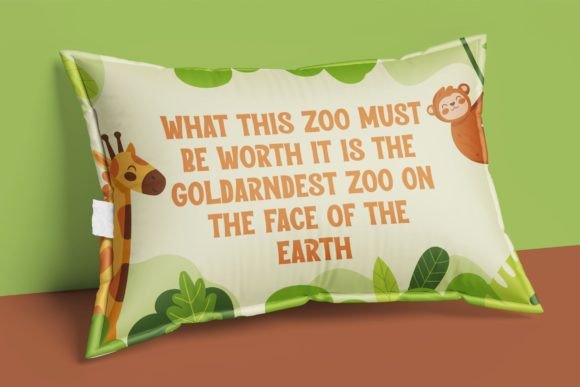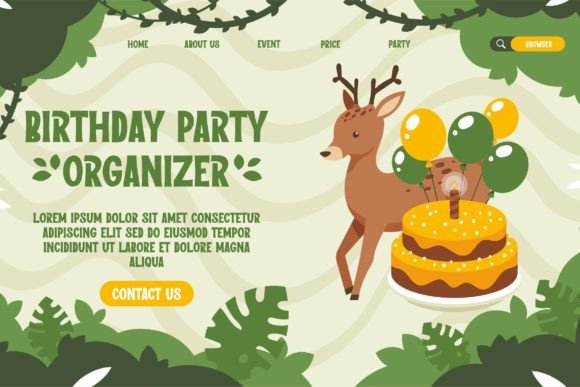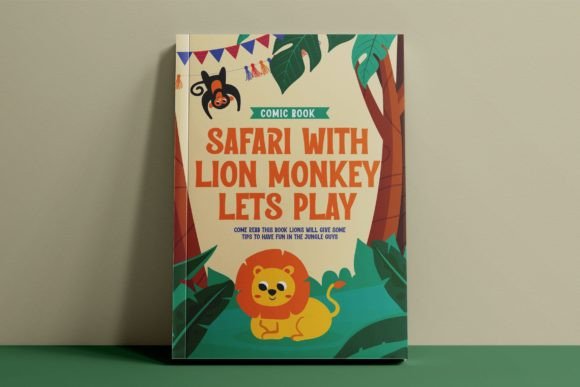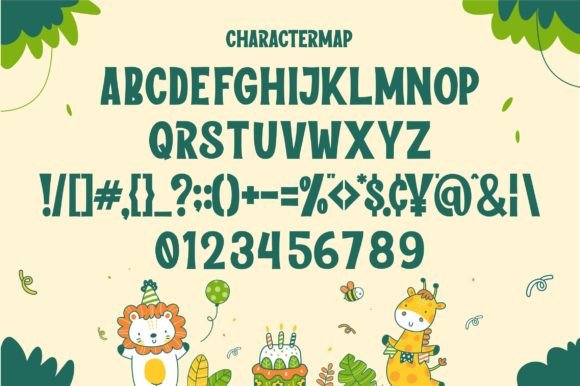
Introducing Foresta Roaster: The Ultimate Font for Outdoor Enthusiasts and Nature Lovers
Are you a designer or crafter looking for a font that captures the essence of the great outdoors? Look no further than Foresta Roaster, a bold and eye-catching display font that embodies the rugged beauty of nature and the warmth of campfire nights. In this article, we’ll delve into the unique features of Foresta Roaster and explore how it can elevate your branding, packaging, and design projects.
The Inspiration Behind Foresta Roaster
Foresta Roaster is inspired by the natural world, with strong, blocky letterforms that evoke the texture of wood or stone. The font’s organic edges and rugged aesthetic are reminiscent of the great outdoors, making it perfect for projects that seek to reflect a sense of adventure and sustainability.
Key Features of Foresta Roaster
- Bold and Eye-Catching: Foresta Roaster is a display font that demands attention. Its bold letterforms are perfect for headlines, titles, and signage.
- Organic Edges: The font’s organic edges give it a natural, earthy feel that’s perfect for outdoor gear, eco-friendly products, and nature-inspired branding.
- Strong and Blocky: Foresta Roaster’s letterforms are strong and blocky, evoking the texture of wood or stone.
- Adventurous and Rustic: The font’s adventurous and rustic aesthetic makes it perfect for projects that seek to reflect a sense of adventure and sustainability.
Perfect for Outdoor and Eco-Friendly Brands
Foresta Roaster is the perfect font for outdoor gear, coffee shops, eco-friendly products, and any project that seeks a natural, earthy feel. Its rugged aesthetic and organic edges make it an excellent choice for brands that want to convey a sense of adventure and sustainability.
Use Cases for Foresta Roaster
- Branding: Use Foresta Roaster to create bold and eye-catching logos that reflect your brand’s adventurous and rustic personality.
- Packaging: Add a touch of natural elegance to your packaging with Foresta Roaster.
- Posters and Signage: Use Foresta Roaster to create striking posters and signage that grab attention.
- Digital Media: Foresta Roaster is perfect for digital media, including social media graphics, website headers, and email newsletters.
Why Choose Foresta Roaster?
Foresta Roaster combines strength with charm, adding character and personality to your design projects. Its unique blend of bold and organic elements makes it an excellent choice for designers and crafters who want to create visually striking and memorable designs.
Foresta Roaster is a versatile and eye-catching font that’s perfect for designers and crafters who want to add a touch of natural elegance to their projects. With its bold and blocky letterforms, organic edges, and adventurous aesthetic, Foresta Roaster is the ultimate font for outdoor enthusiasts and nature lovers. Download Foresta Roaster today and take your design projects to the next level!